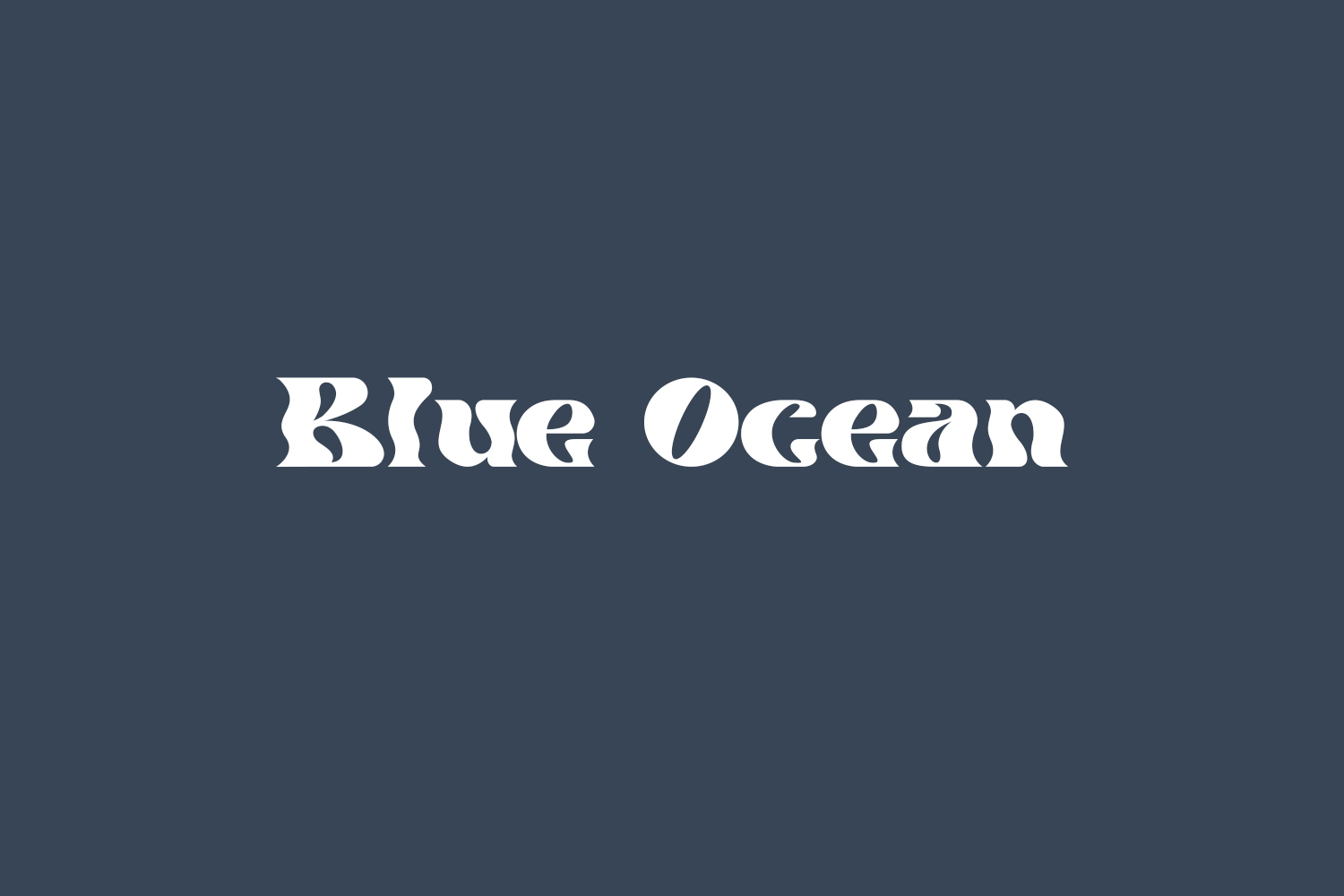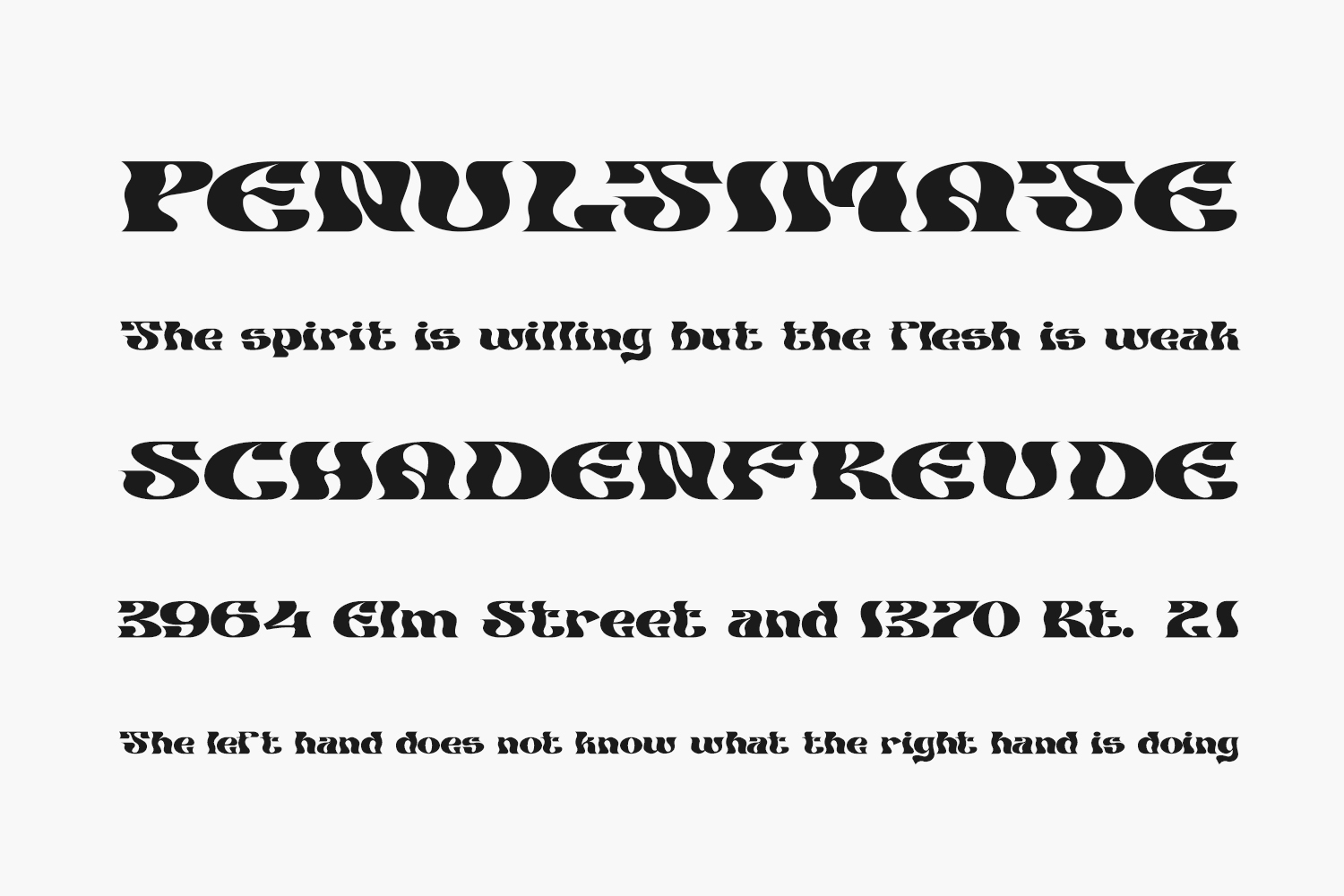
Blue Ocean Free Font is a creative slab serif font that has its own unique style and modern look. This typeface is perfect for an elegant & luxury logo, book or movie title design, fashion brand, magazine, clothes, lettering, quotes, and so much more.